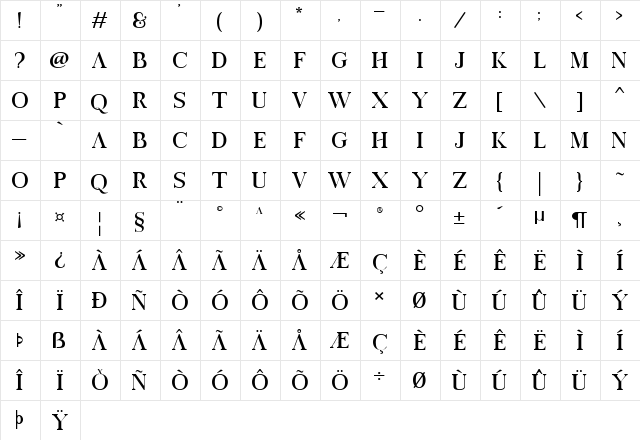
Night Regular
| Foundry | Vilogsign |
| Designer | Vilogsign |
Design Context for Night Typeface
Night takes a measured approach to typography — its balanced proportions and neutral character make it a reliable workhorse for both digital and print work.